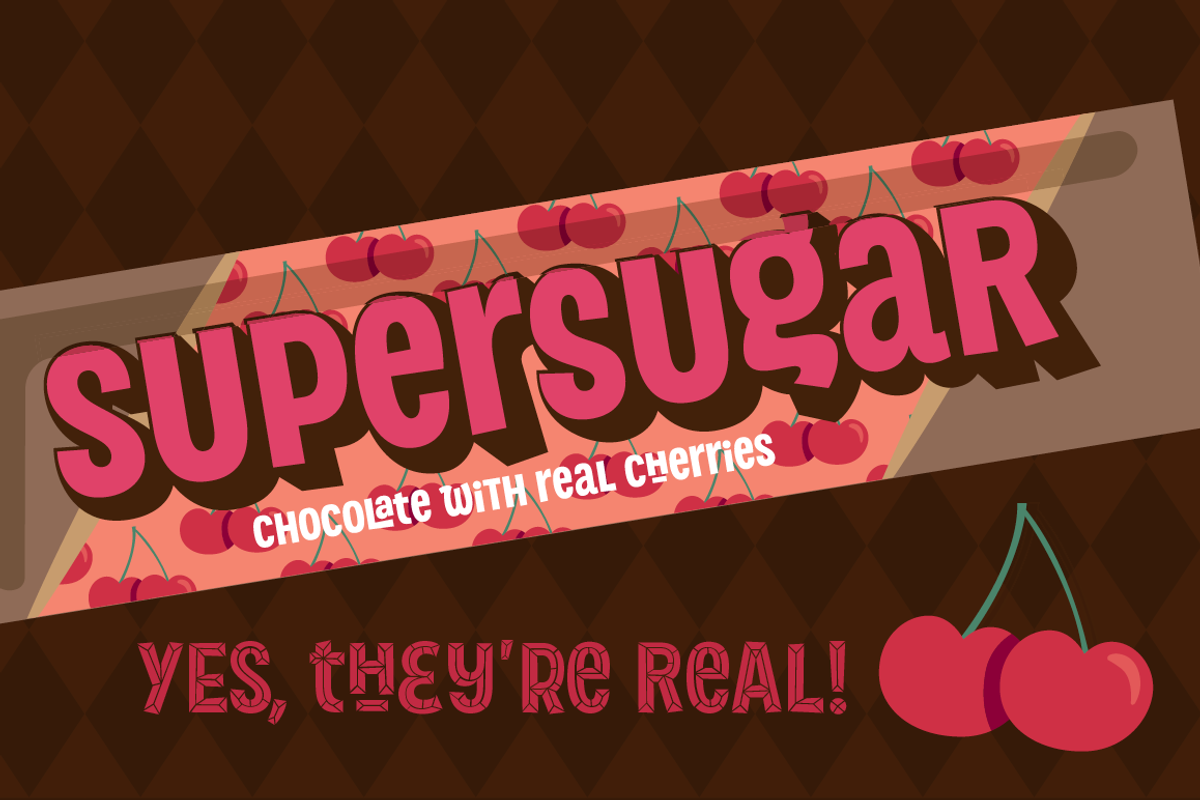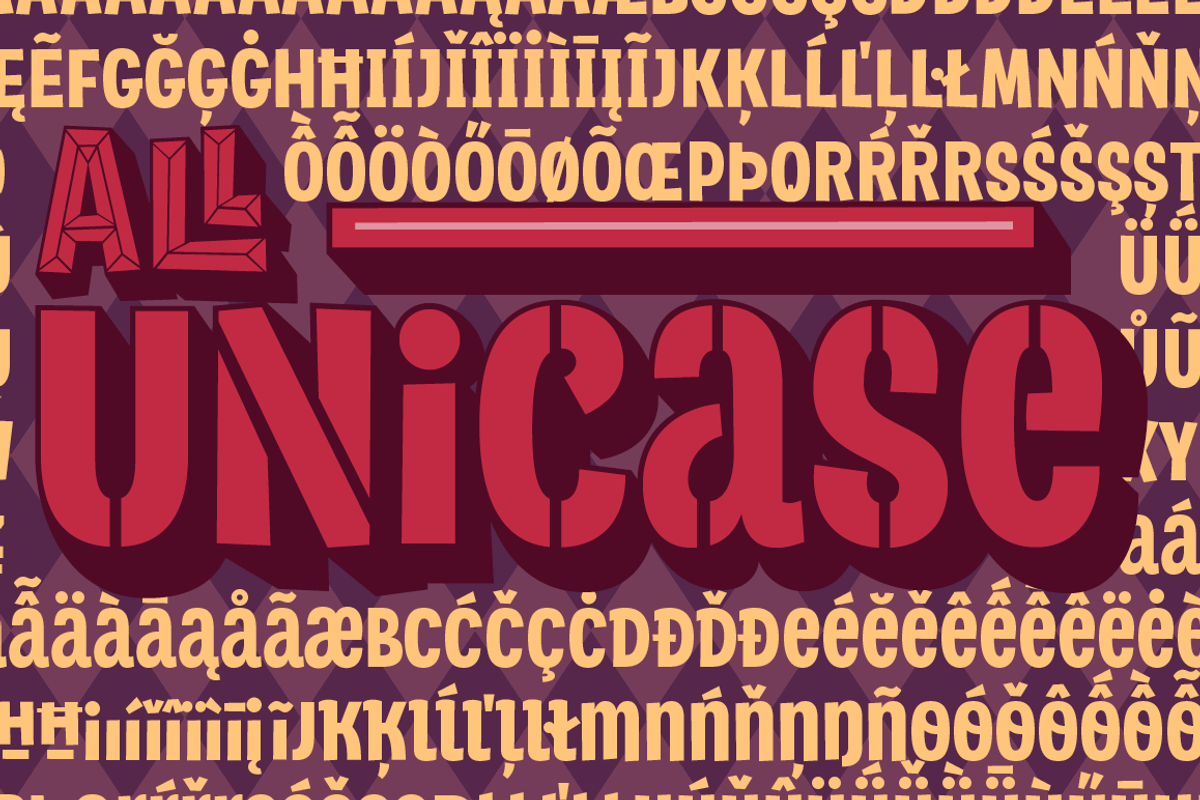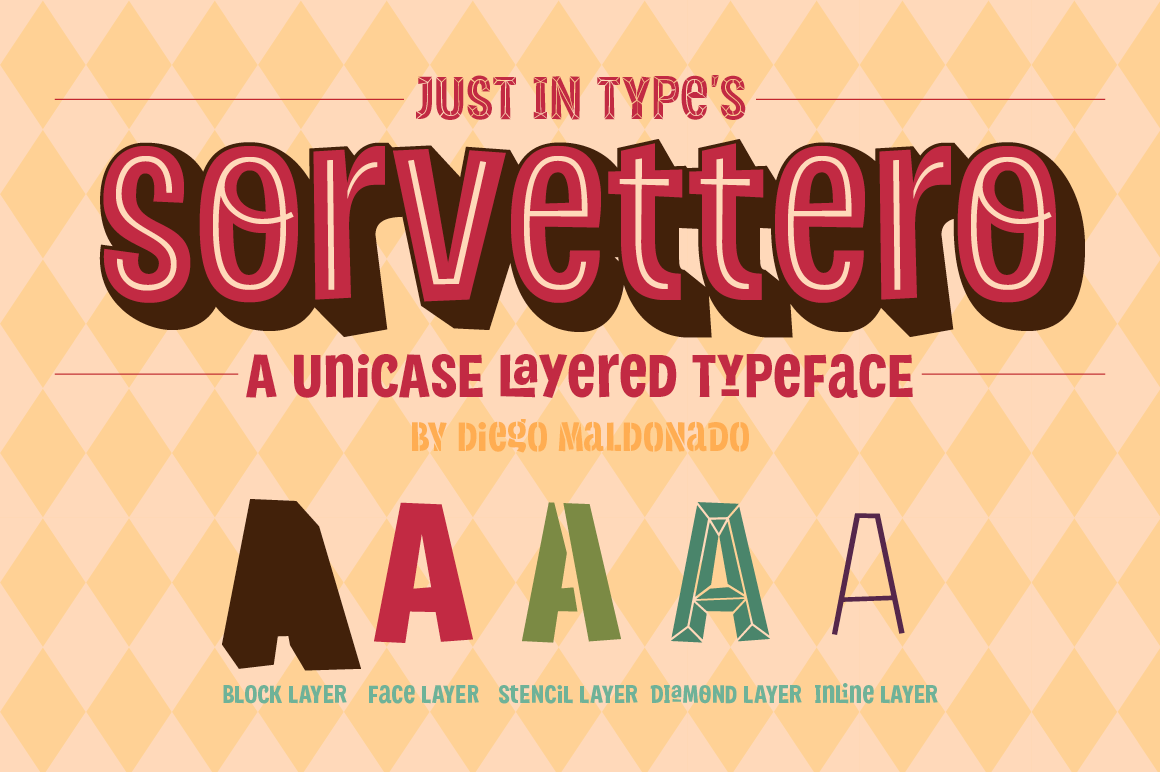
Sorvettero is a sans, layered and unicase typeface inspired by some wood signs at Descansópolis, a neighborhood on Campos do Jordão, a city of Brazil. A fun and cute display project with different use purposes, like packaging, logos, signs, and whatever your creativity brings on.